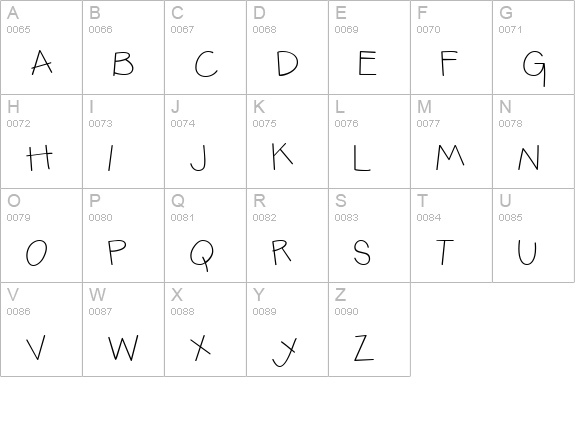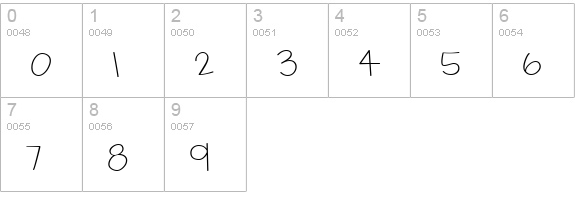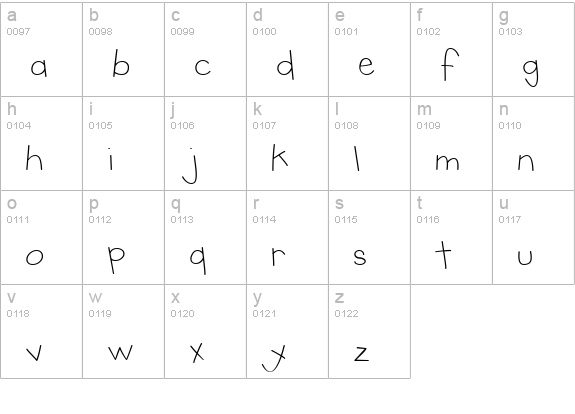
CK Toggle Font Details
Introducing CK Toggle font, a sleek and modern typeface perfect for adding a touch of style to your designs. This versatile font features clean lines and a contemporary aesthetic that will elevate any project. CK Toggle font is not only visually appealing, but also highly legible, making it suitable for a wide range of applications. The best part? CK Toggle font is completely free to download at FontsMarket.com. Whether you're working on branding, advertising, or any other creative project, this font is sure to make a statement. Don't miss out on the opportunity to enhance your designs with this stylish and professional typeface. Download CK Toggle font today and take your creations to the next level!